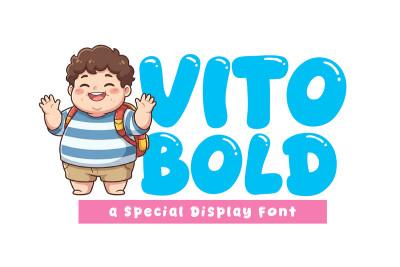
Vito Bold - Cozy & Display Font
Vito Bold - Cozy & Display combines clean construction with expressive detail, making it a dependable asset in any type toolkit.